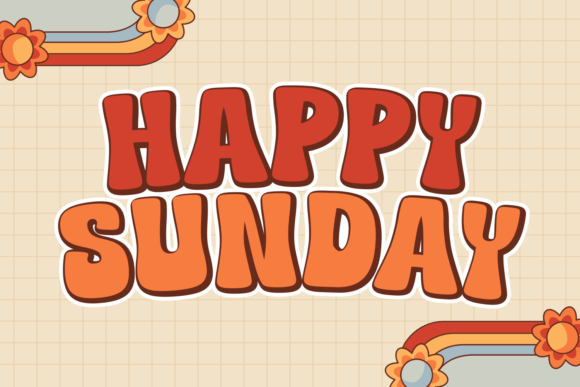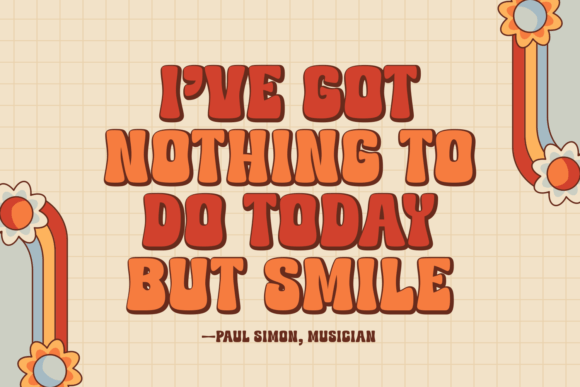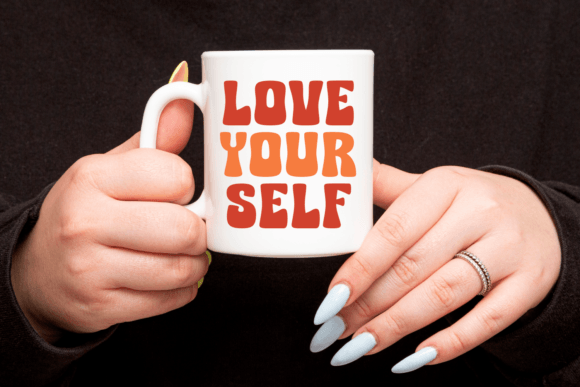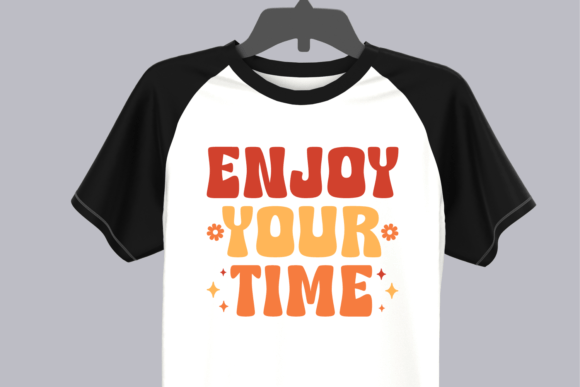
Introduction to Enjoy Retro Font
Enjoy Retro is a thick and joyful display font.
Inspired by retro-style typography from the past, this stylish font is perfect for creating bold and eye-catching designs Add it to your fonts library, and use it to give life to posters, apparel, kids’ t-shirts, banners, signage, advertisements, and more.
Key Features of Enjoy Retro Font